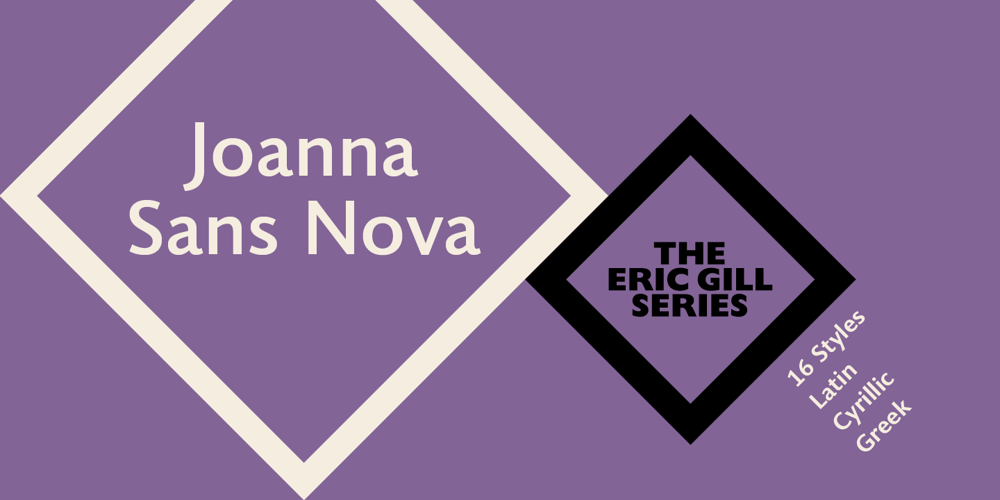
Joanna Sans Nova
Joanna Sans Nova font
Joanna Sans Nova Font Family was designed by Terrance Weinzierl and published by Monotype. Joanna Sans Nova contains 16 styles and family package options. The Joanna® Sans Nova family is the only typeface in the Eric Gill Series that was not initially designed by Gill. Created by Monotype Studio designer Terrance Weinzierl over a three-year period with digital applications at the forefront of the design criteria, Joanna Sans Nova is a humanist sans serif based primarily on Gill’s original Joanna. The design comprises 16 fonts, from thin to black, each with a complementary italic. Joanna Sans Nova has a larger x-height to ensure high levels of legibility – even on small digital screens. Due to its inherent humanist proportions, Joanna Sans Nova is surprisingly comfortable for longer form reading. Its low contrast in character stroke weights also improves imaging in a variety of environments. In addition, the calligraphic and fluid details enable the roman and italic designs to shine in headlines and other display uses. Joanna Sans features a robust range of OpenType features for fine typography, including small caps, old style figures, proportional figures, ligatures, superscript and subscript figures and support for fractions. With over 1000 glyphs per font, Joanna Sans supports more than 50 languages – in Latin, Greek and Cyrillic scripts. “I’ve always been a fan of Gill’s work, explains Weinzierl, and found the simple, humanist qualities of Joanna really fitting for a sans serif design. I wanted to make something with Gill flavor, but with more harmony in the extreme weights than Gill Sans – and with my twist on it. I went through six or seven different italic designs before landing on the current direction.” “The original Joanna had a very distinct italic, Weinzierl continues. “It’s very condensed, and has a very shallow angle. I wanted to have an italic that stood out, but in a different way. I took a cursive direction for the italic details, which are wider and slanted more, both improving character legibility.” The Joanna Sans Nova typeface family is part of the new Eric Gill series, drawing on Monotype’s heritage to remaster and expand and revitalize Eric Gill’s body of work, with more weights, more characters and more languages to meet a wide range of design requirements. The series also brings to life new elements inspired by some of Gill’s unreleased work, discovered in Monotype’s archive of original typeface drawings and materials of the last century.